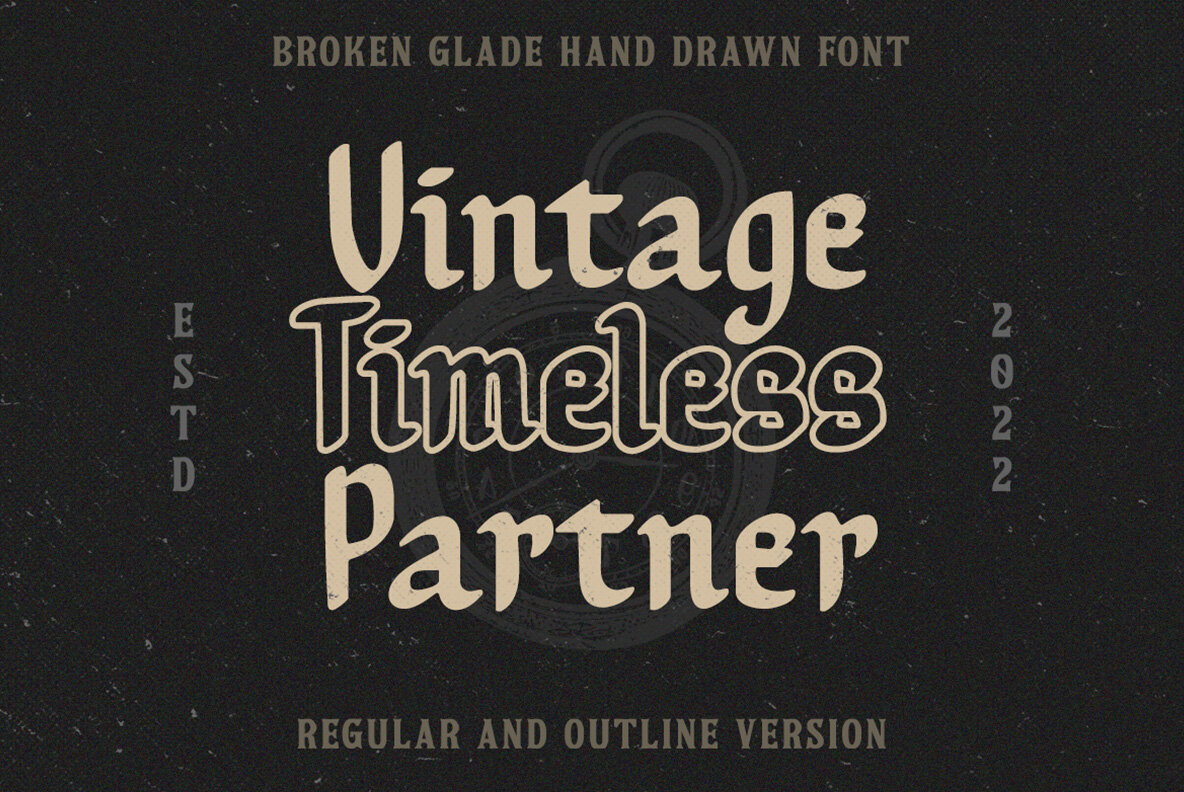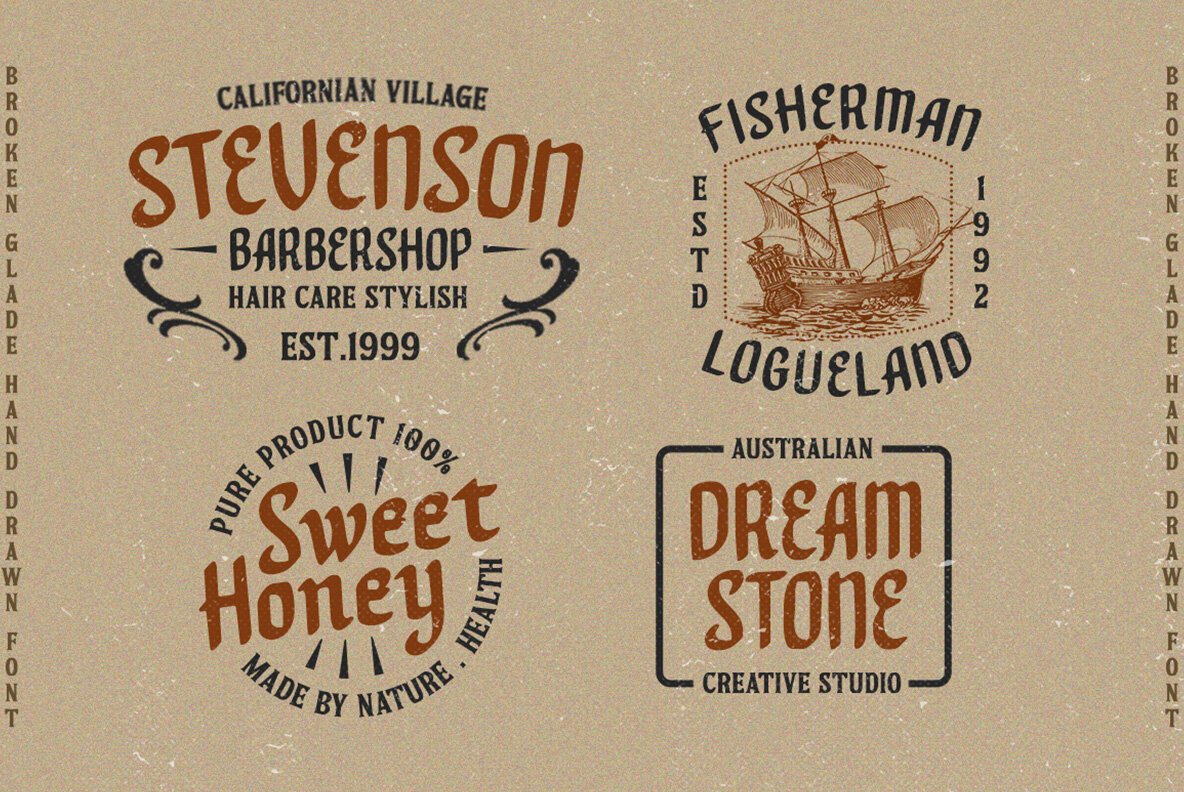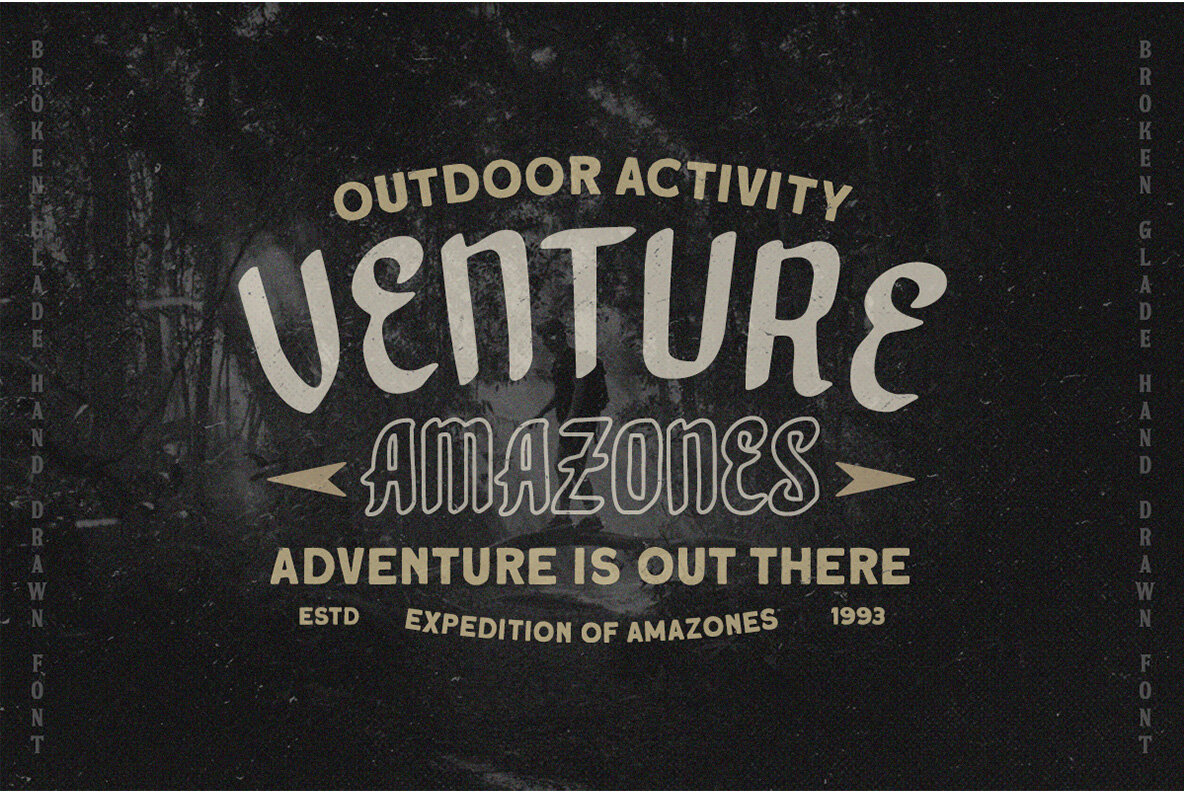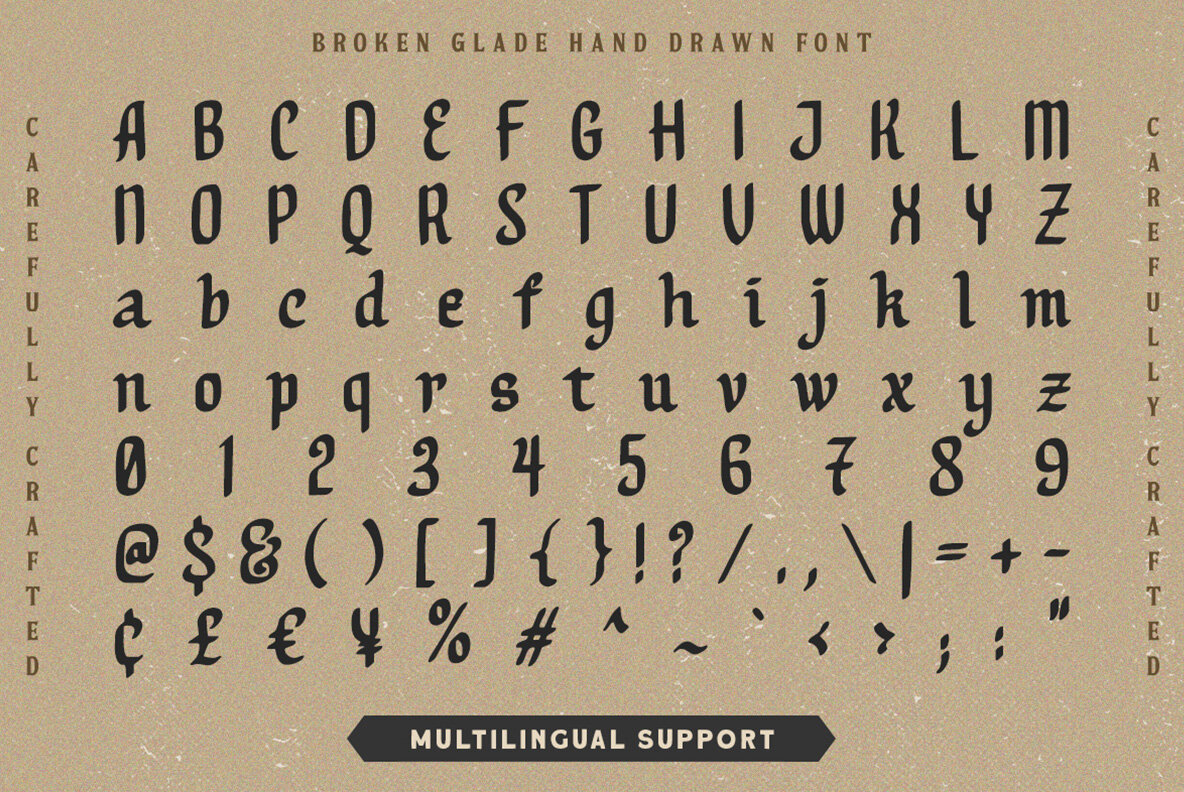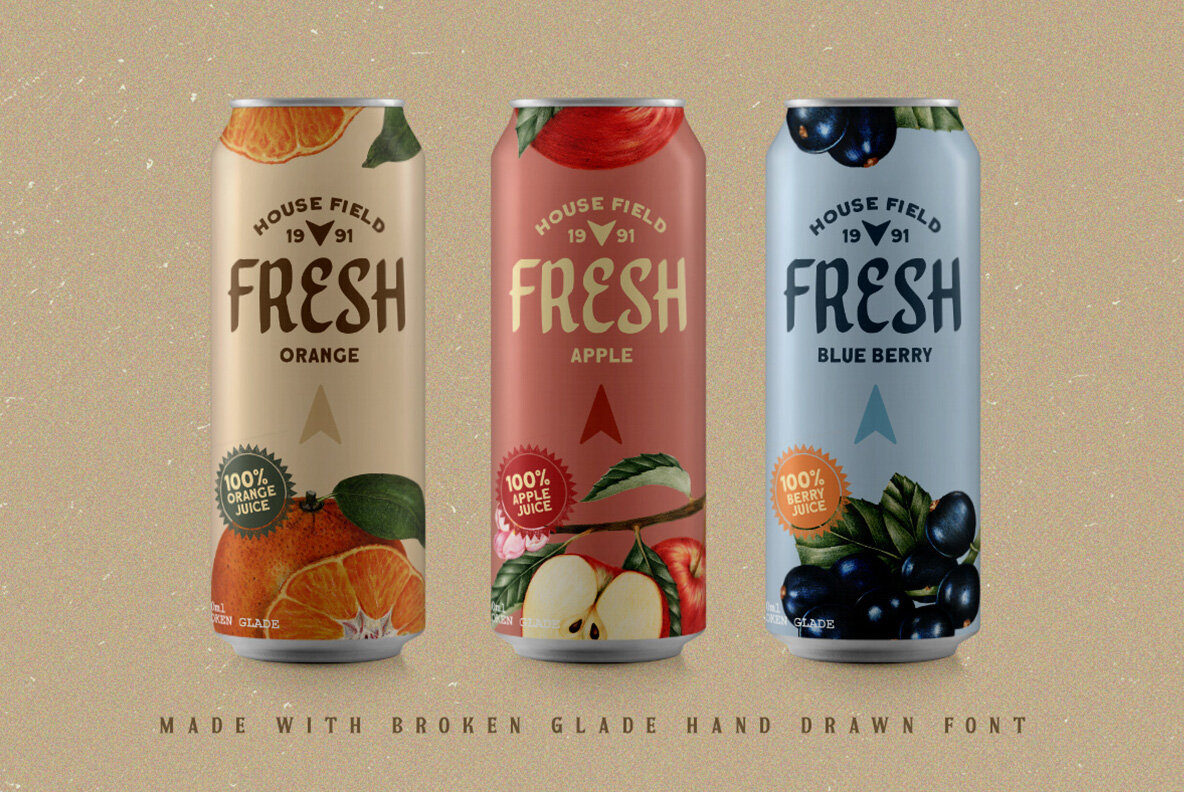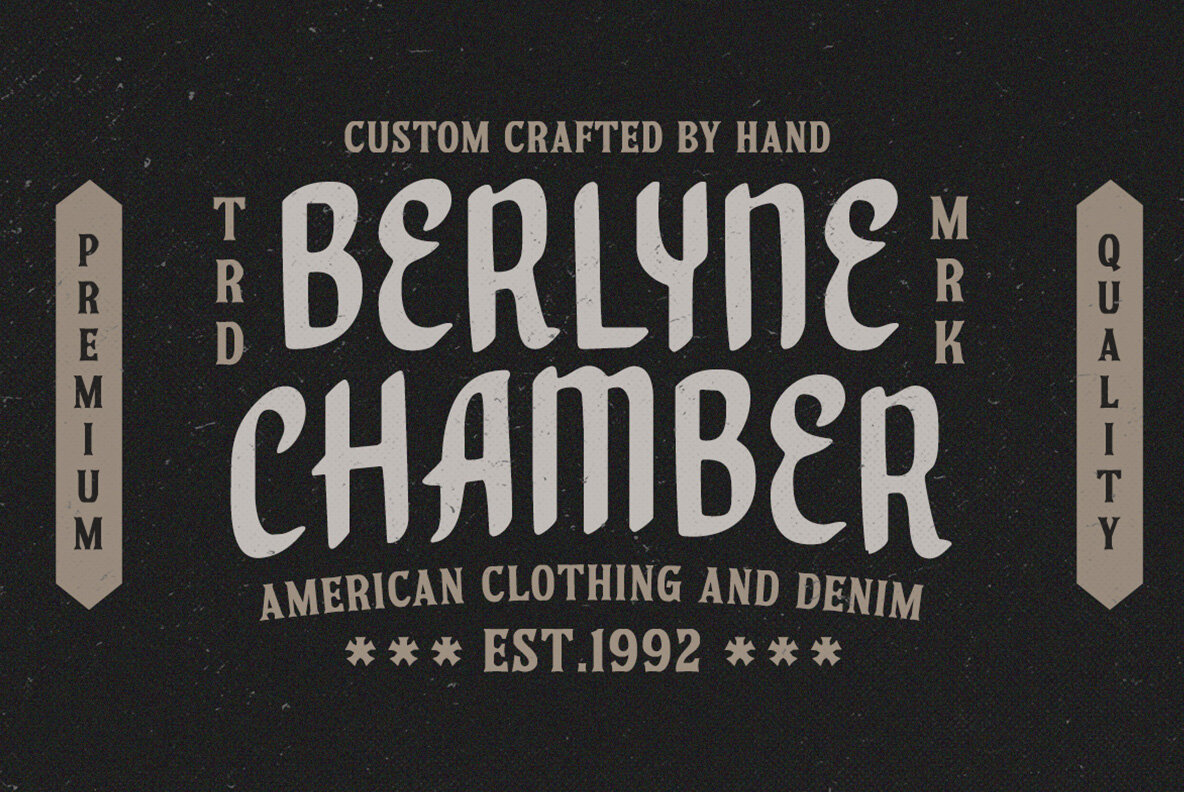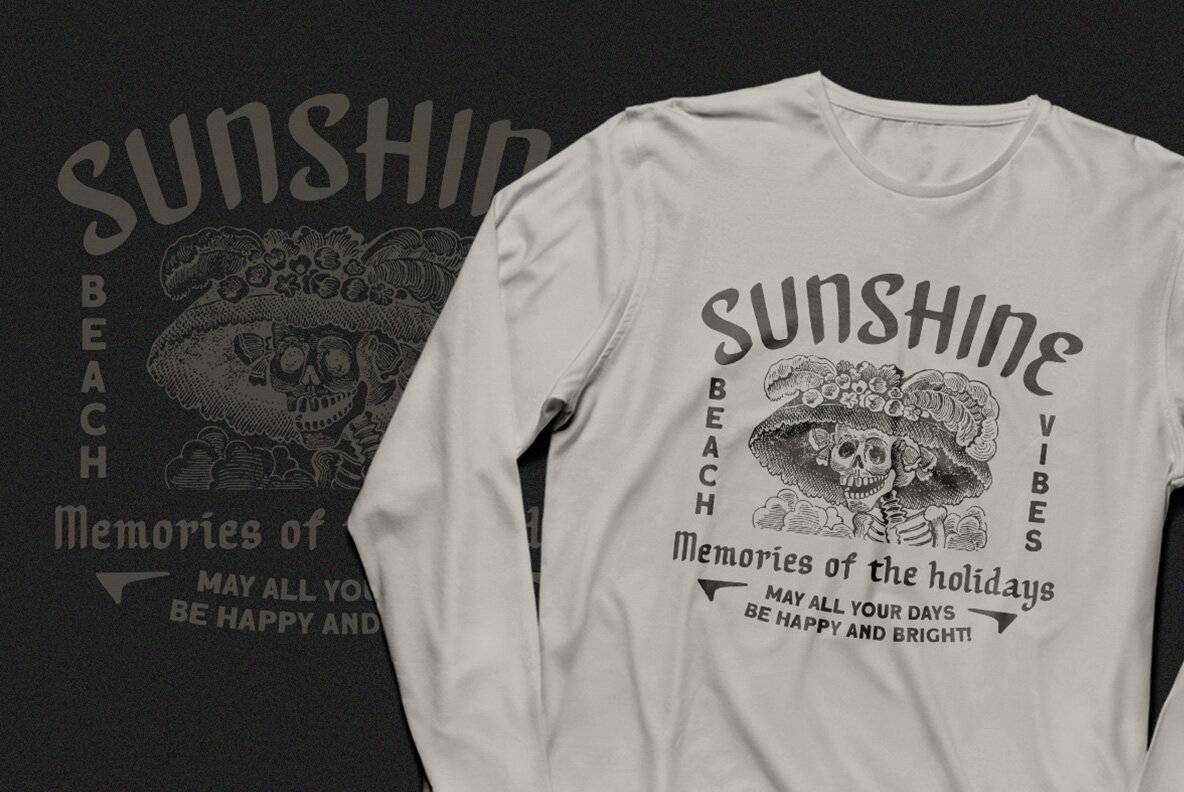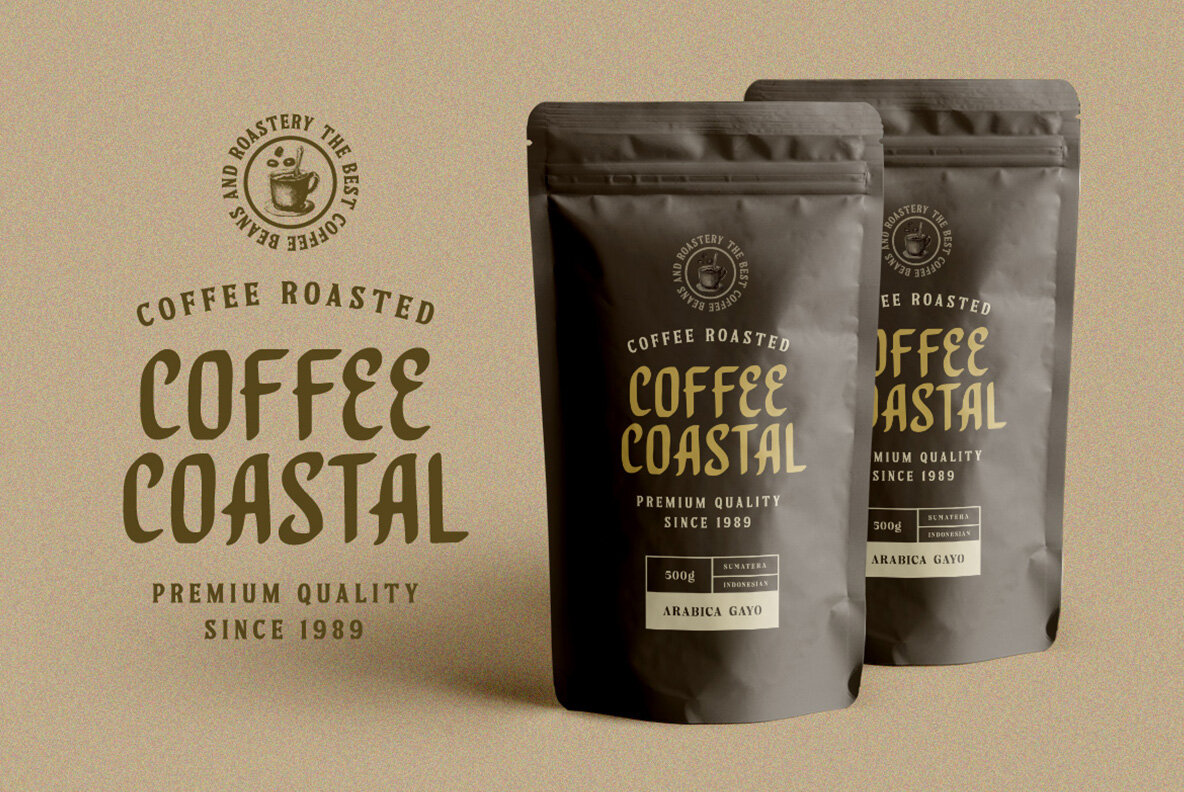
Broken Glade Font
Broken Glade is a classic hand-drawn font that captures vintage aesthetics while catering to contemporary design needs. This font offers two distinguished styles: regular and outline. It excels in various applications, particularly logos and formal settings, including invitations, labels, magazines, and more. Its versatility extends to personal stationery and advertising elements, making it a timeless choice for creative projects. For optimal use, employ design programs that support OpenType features and Glyphs panels, such as Adobe software and Corel Draw. This ensures access to the full range of Broken Glade's typographic offerings.Broken Glade: Vintage Charm Meets Modern Utility